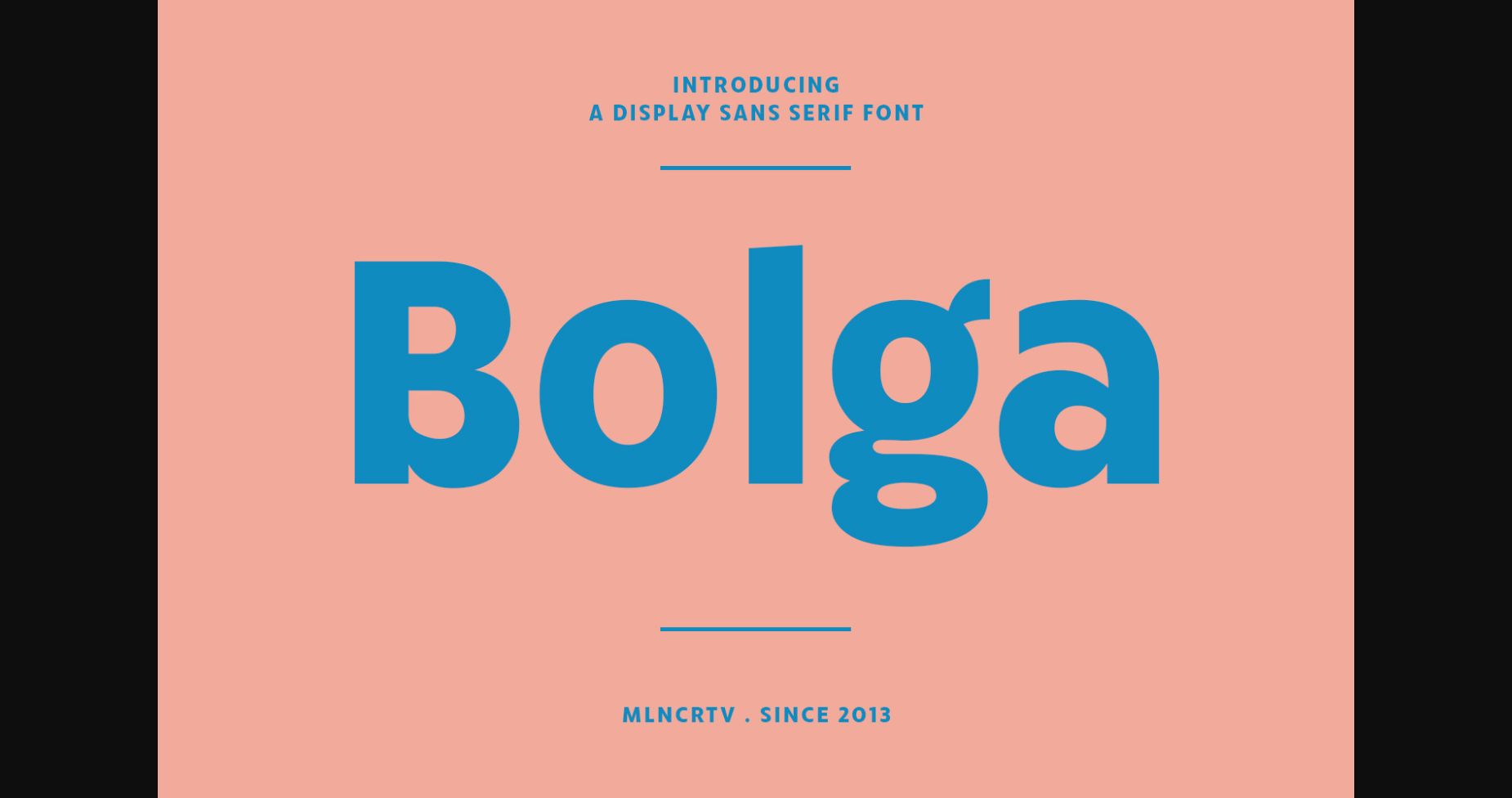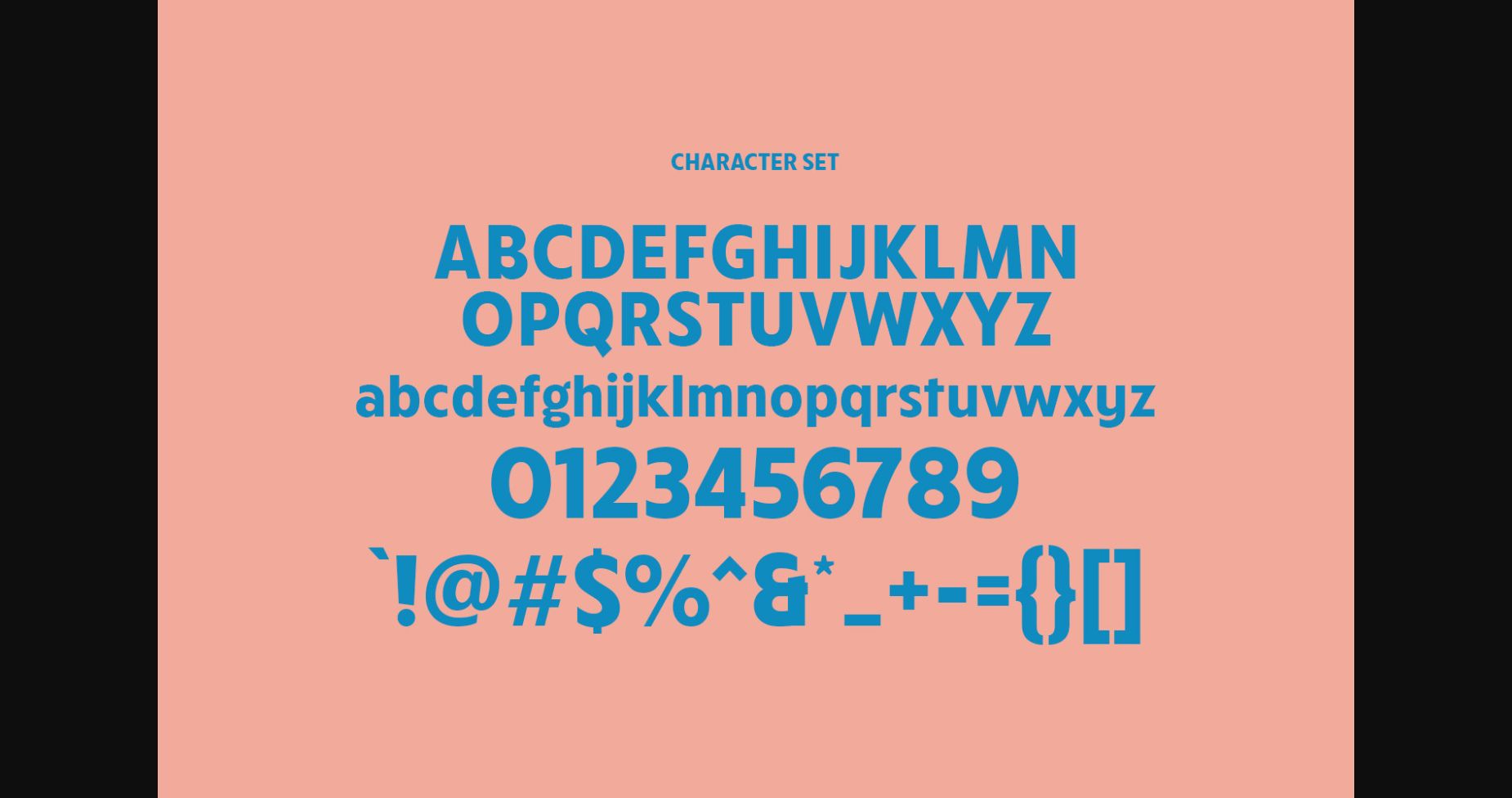
About Bolga Font
Bolga is a modern decorative sans display font. Bold stroke, fun character with a bit of ligatures and alternates. This font is good for logo design, Social media, Movie Titles, Books Titles, a short text even a long text letter and good for your secondary text font with script or serif. Make a stunning work with Bolga font.